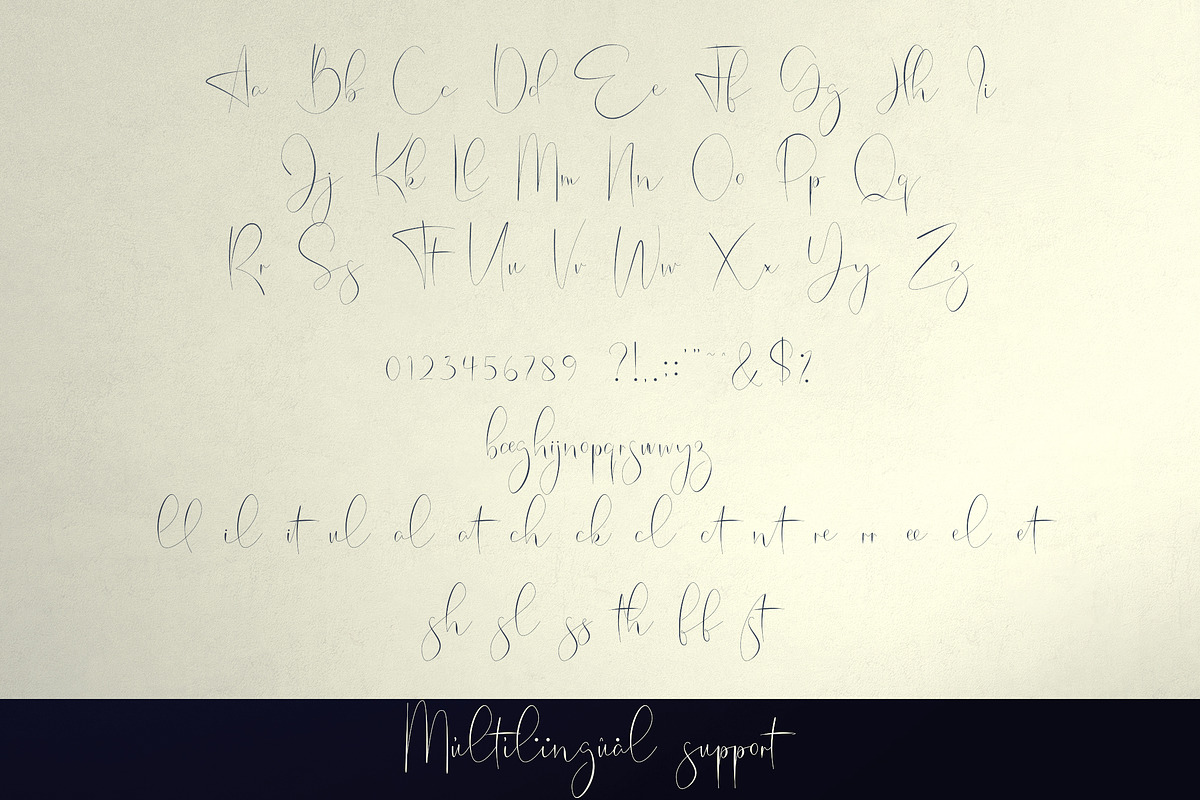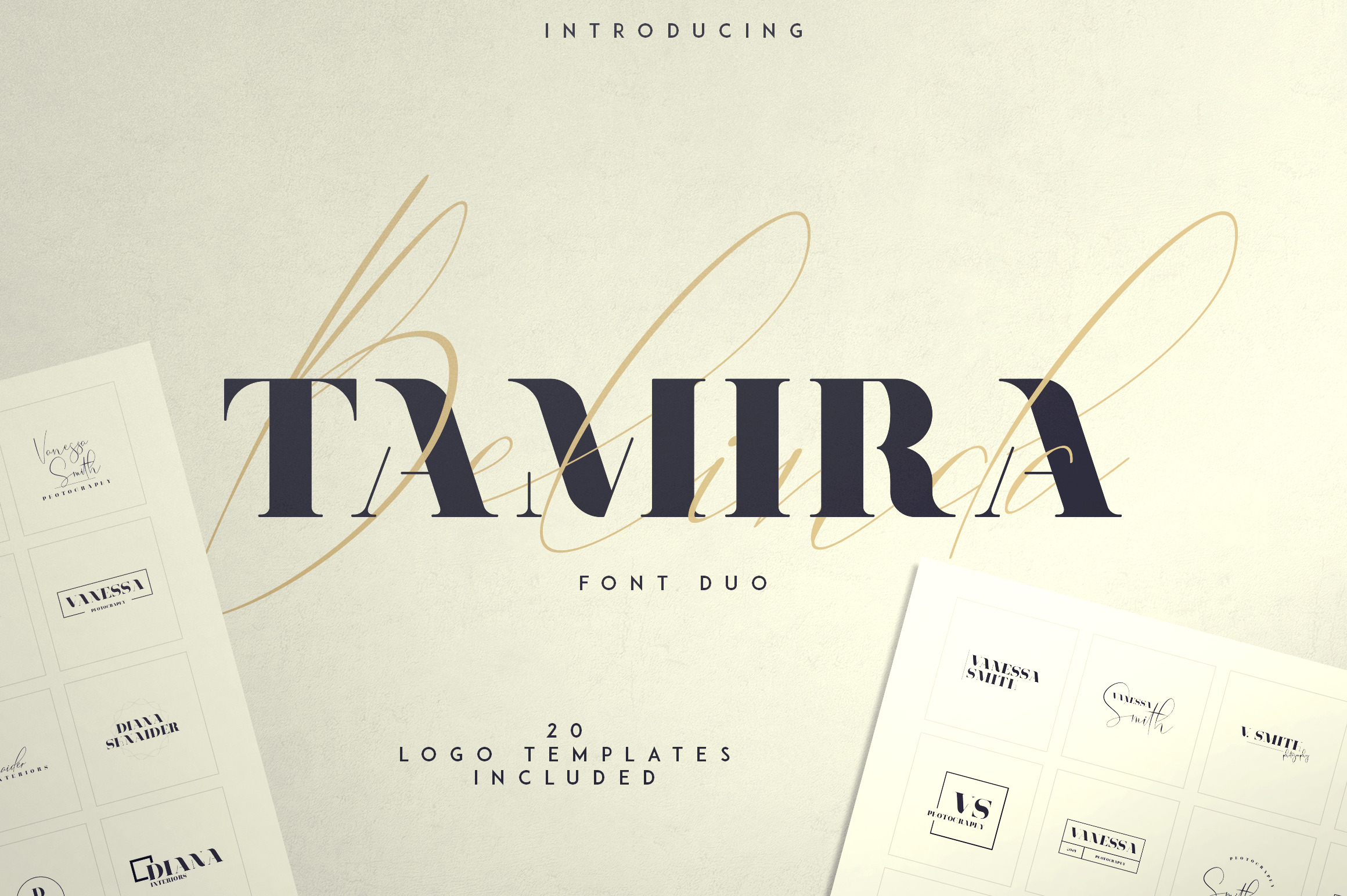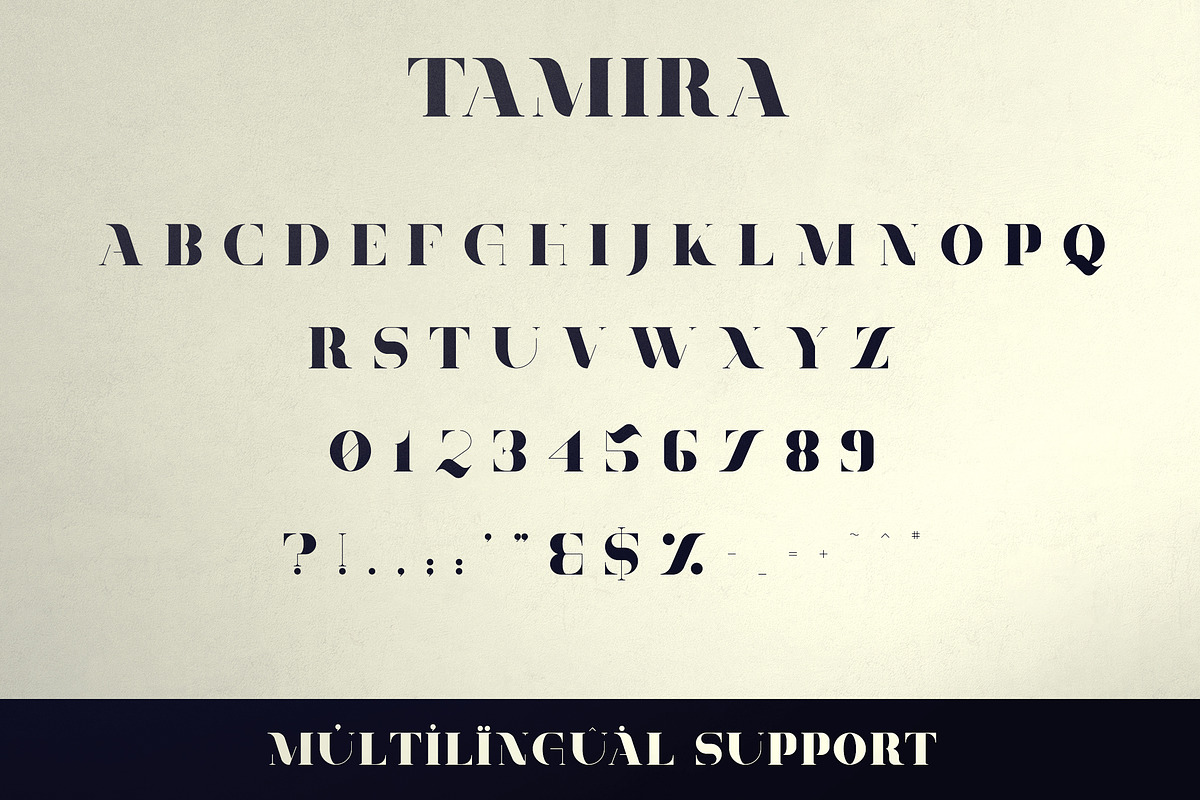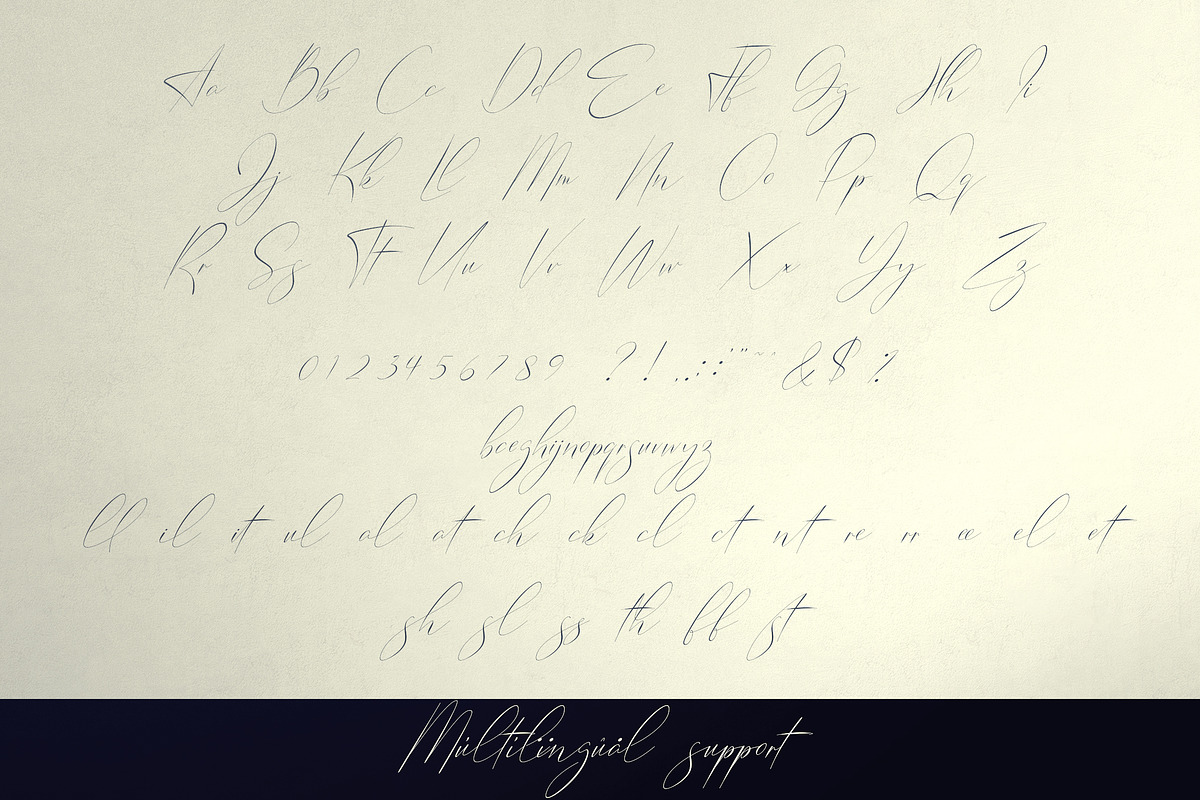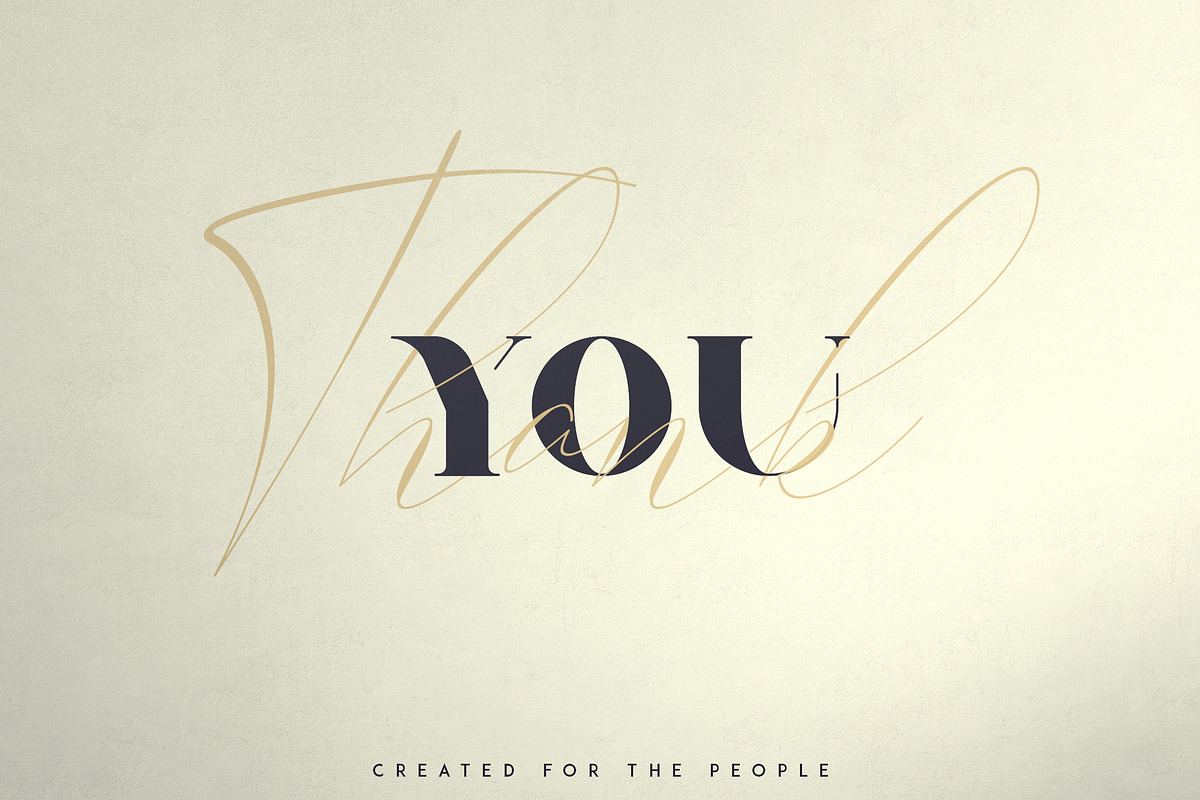
Belinda Tamira - Font duo + 20 Logos
INTRODUCING Belinda Tamira - Font duo + 20 Logo Templates
Belinda Tamira is luxury, clean font duo with total of 6 font styles, ligatures and multilingual support. It's a very versatile font that works great in large and small sizes.
Belinda Tamira is perfect for branding projects, home-ware designs, product packaging, magazine headers - or simply as a stylish text overlay to any background image.
- Uppercase,lowercase, numeral,punctuation & Symbol
- Clean
- Belinda - Regular, Italic
- Tamira - Light, Regular, Bold, Black